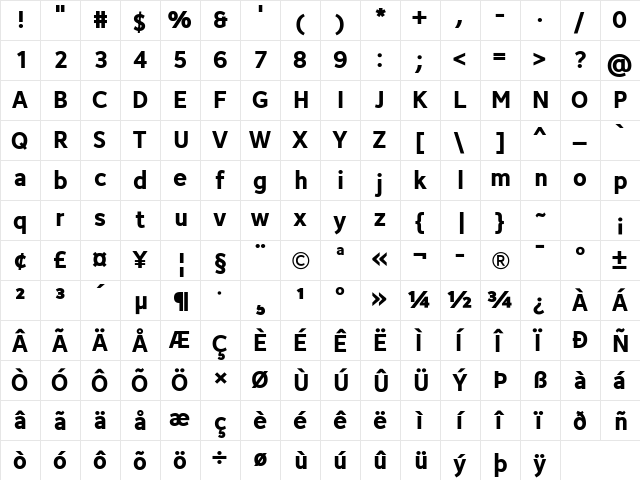
Avancement 2020 Bold Font Preview
Avancement 2020 Bold
Avancement 2020 Bold Font Details
| Foundry | Daniel Lyons Entertainment |
| Designer | Dan P. Lyons |
Design Context for Avancement 2020 Typeface
Avancement 2020 offers clean, dependable letterforms without strong stylistic allegiance, making it a practical choice for designers who need flexibility. Its bold stroke weight gives it real presence on the page.